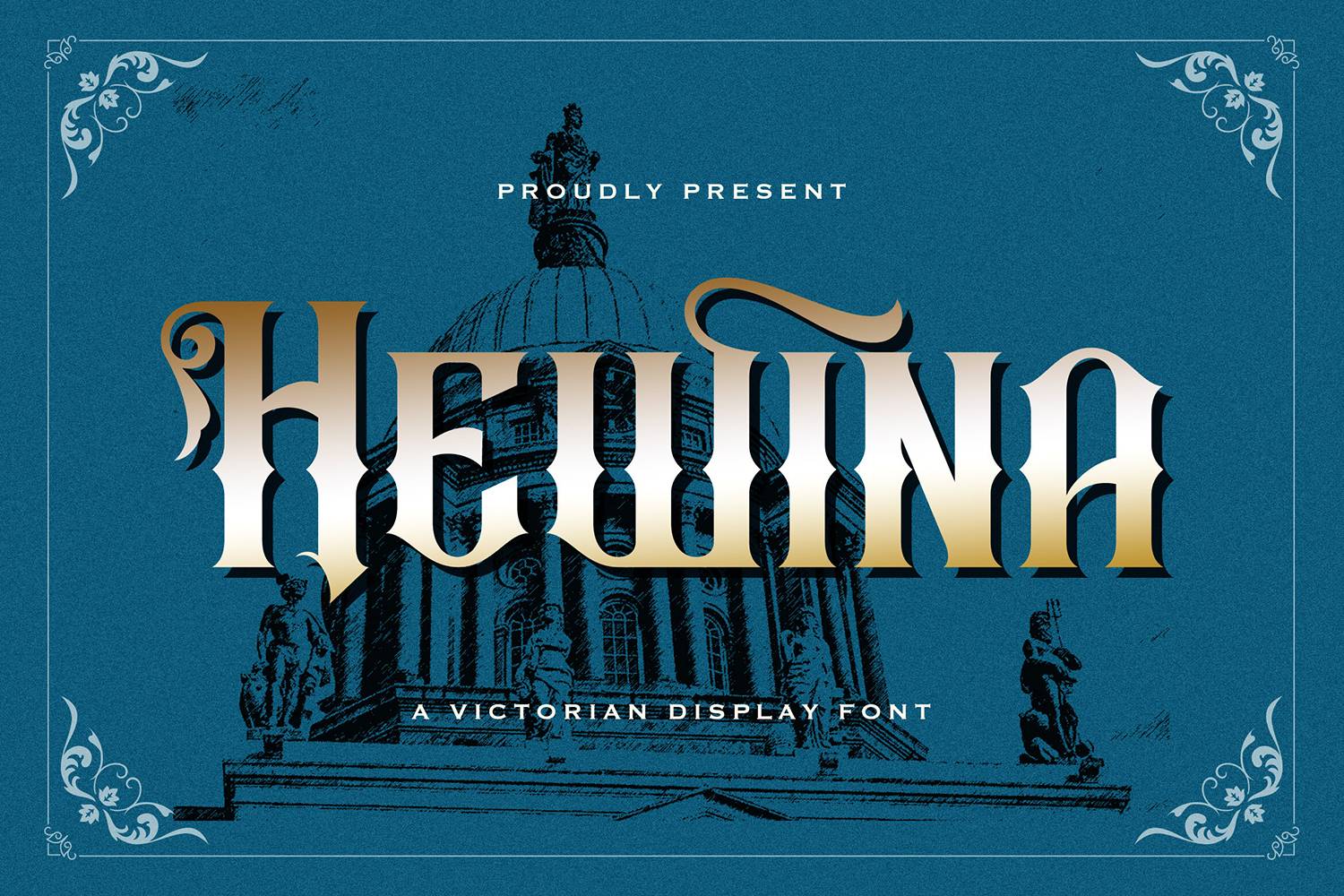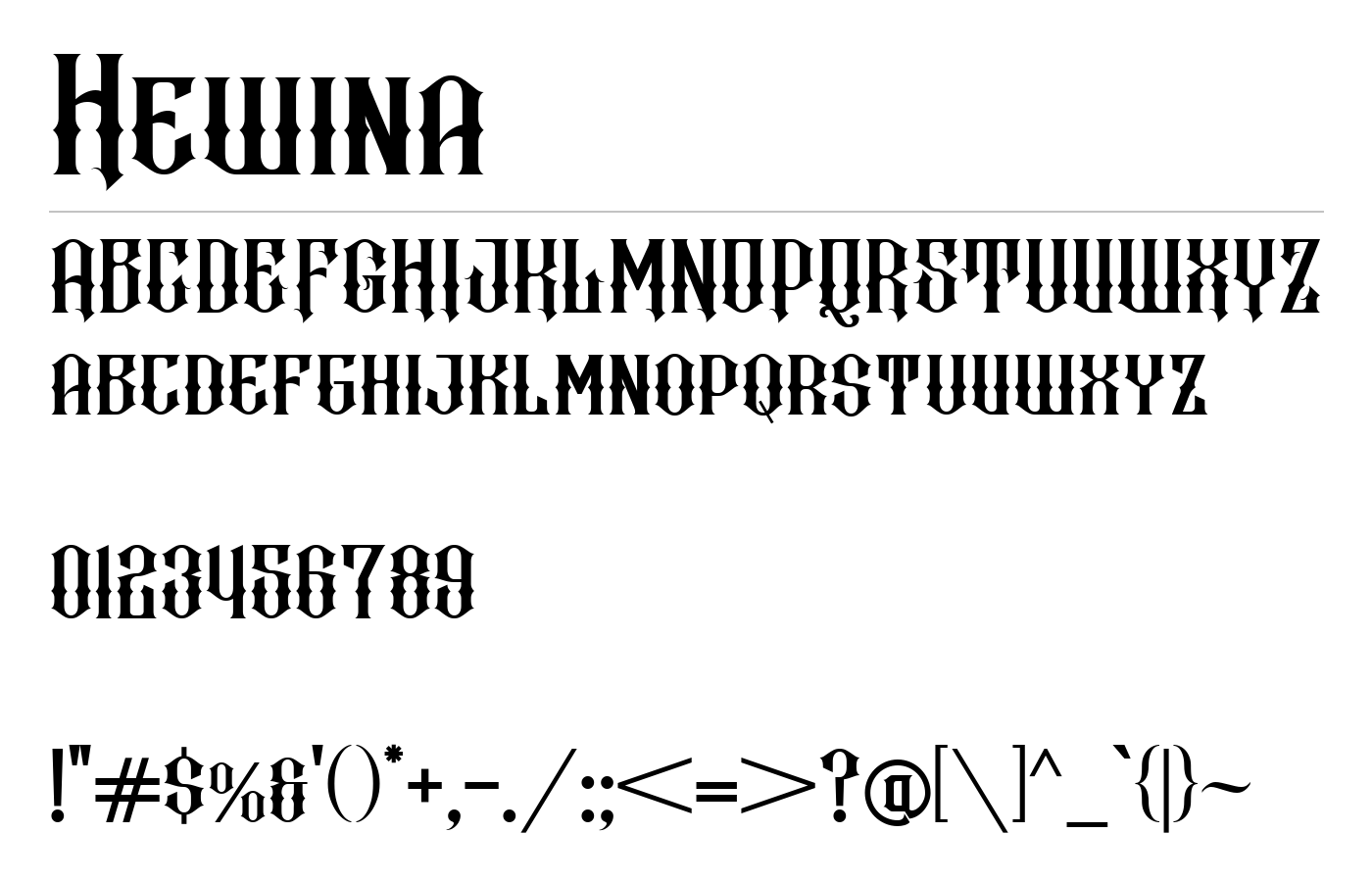
Hewina is a bold, condensed serif display font with a strong gothic influence, featuring high contrast between thick and thin strokes and sharp, ornamental serifs. Its distinctive letterforms, including decorative details and a medieval vibe, make it perfect for attention-grabbing headlines, logos, and branding in fashion or vintage-inspired projects. This font brings a dramatic and stylish personality that works best in designs needing a bold, elegant, and historic touch.
Hewina Font
About Hewina Font